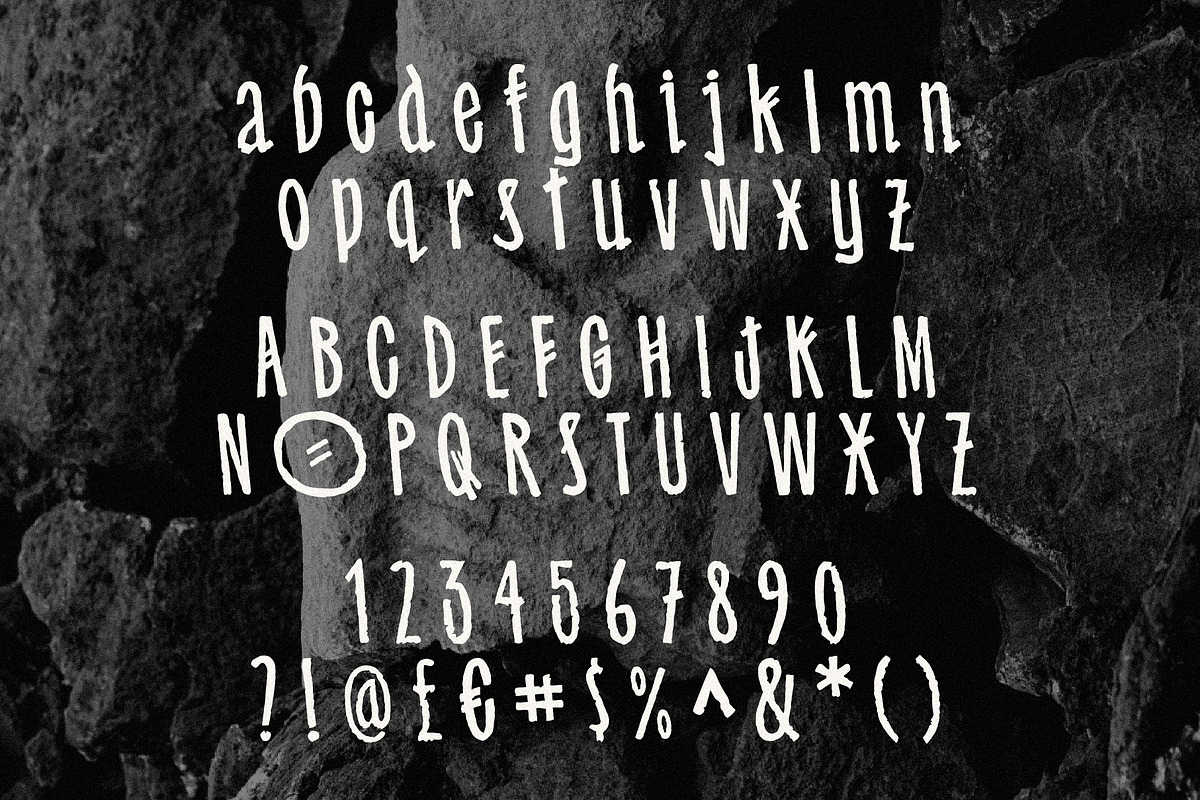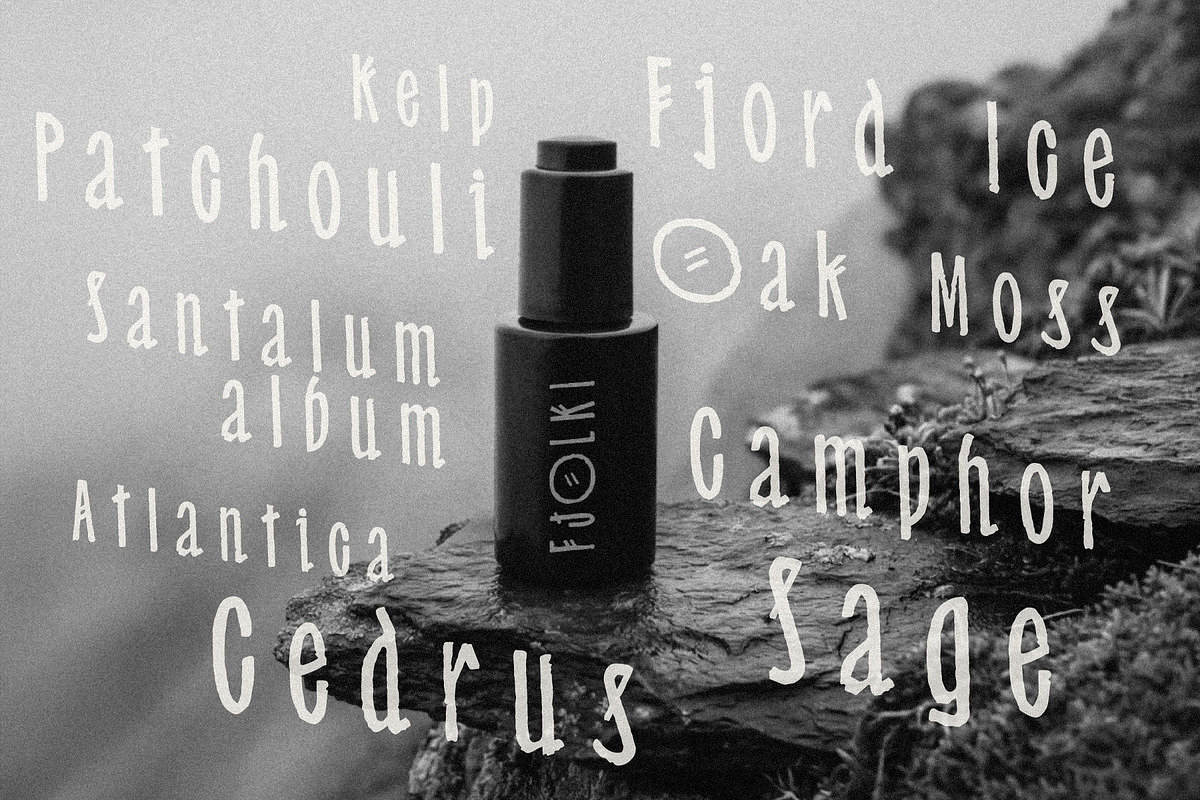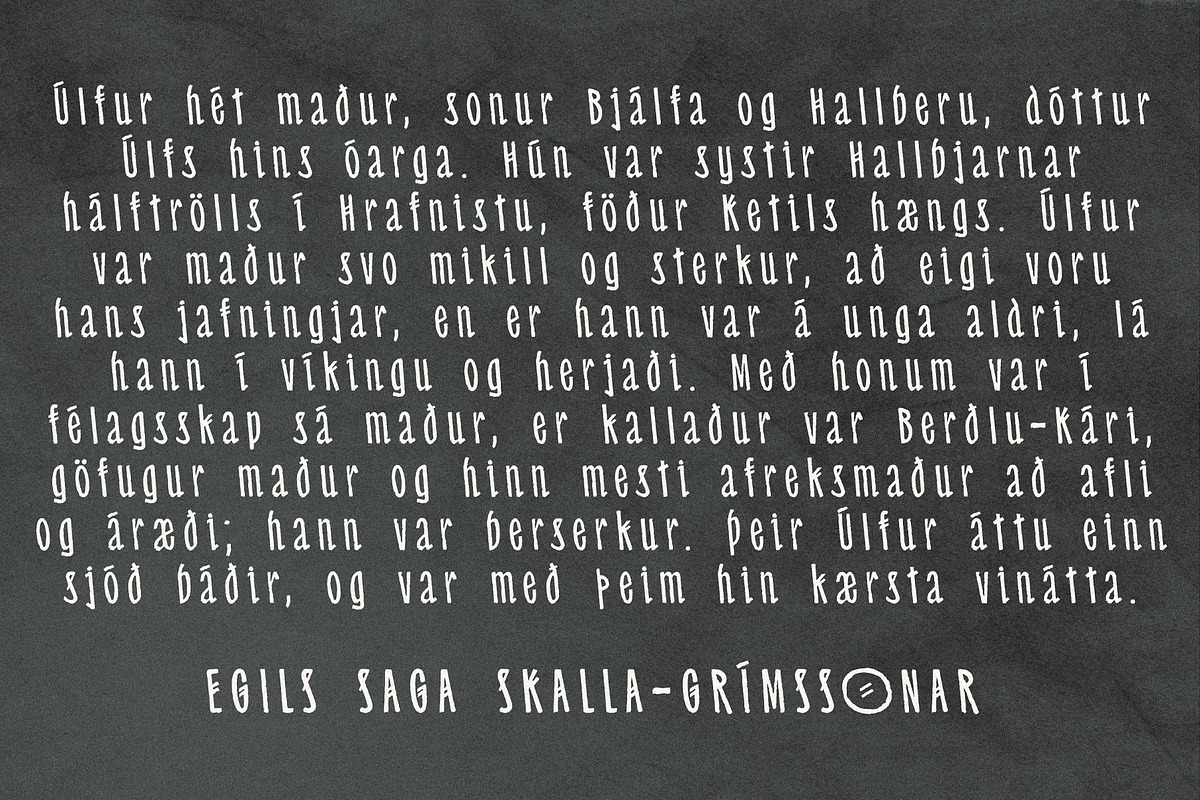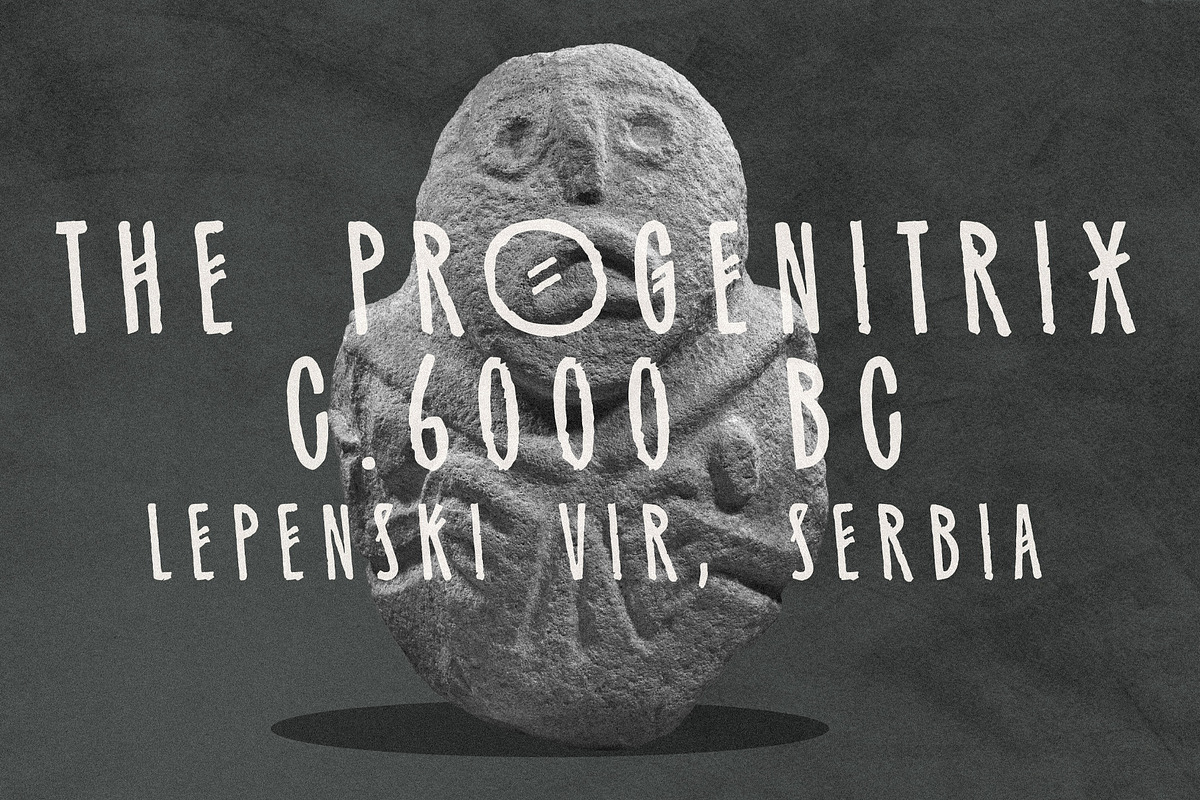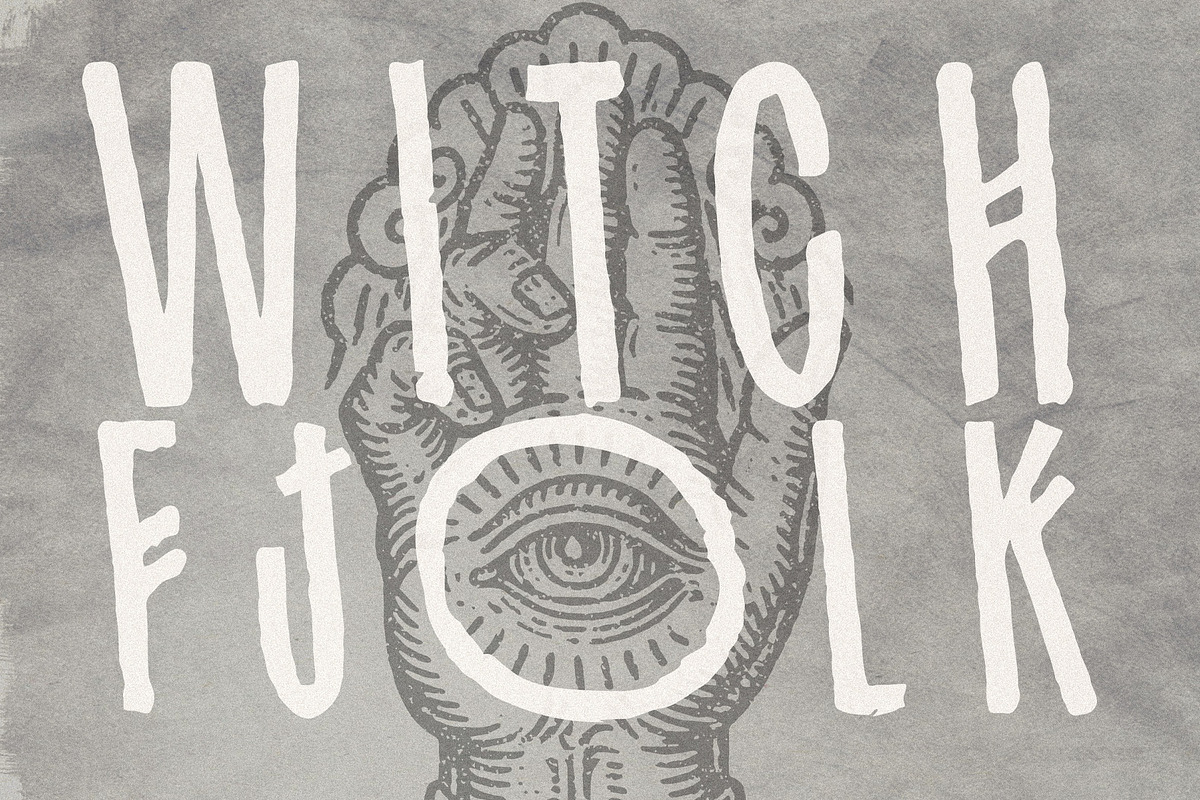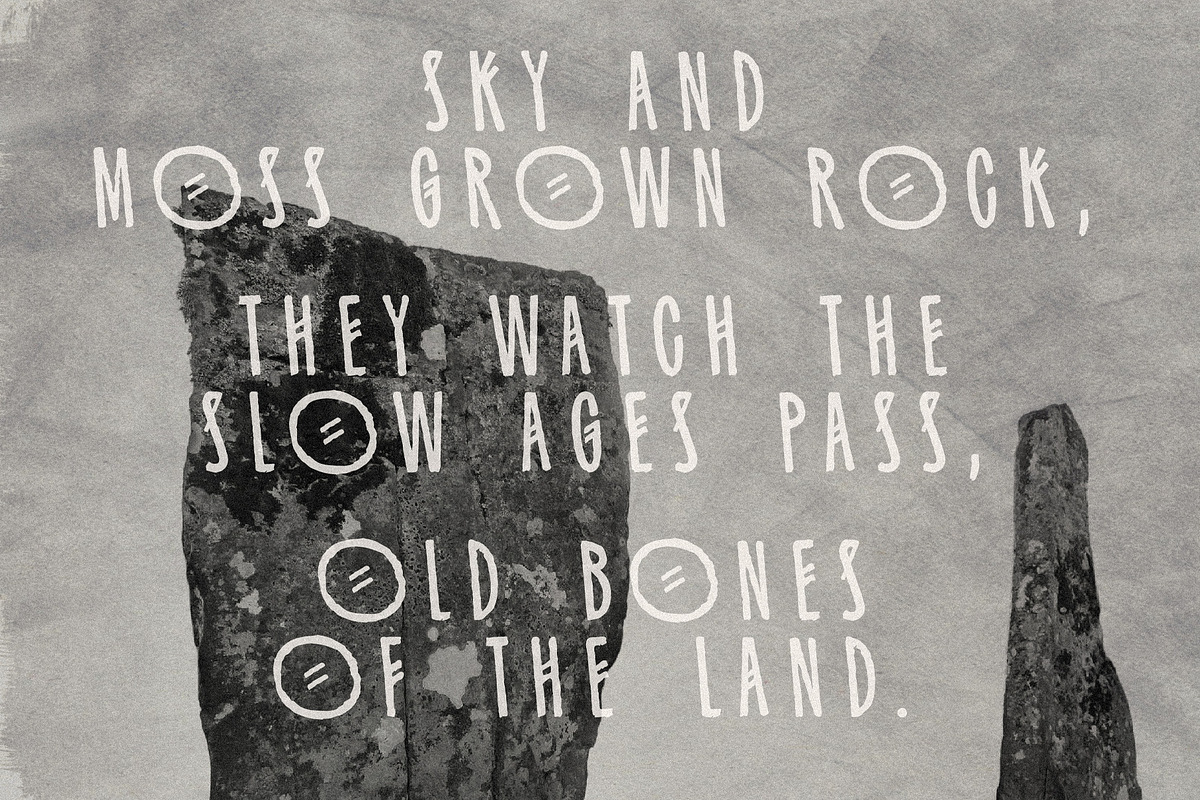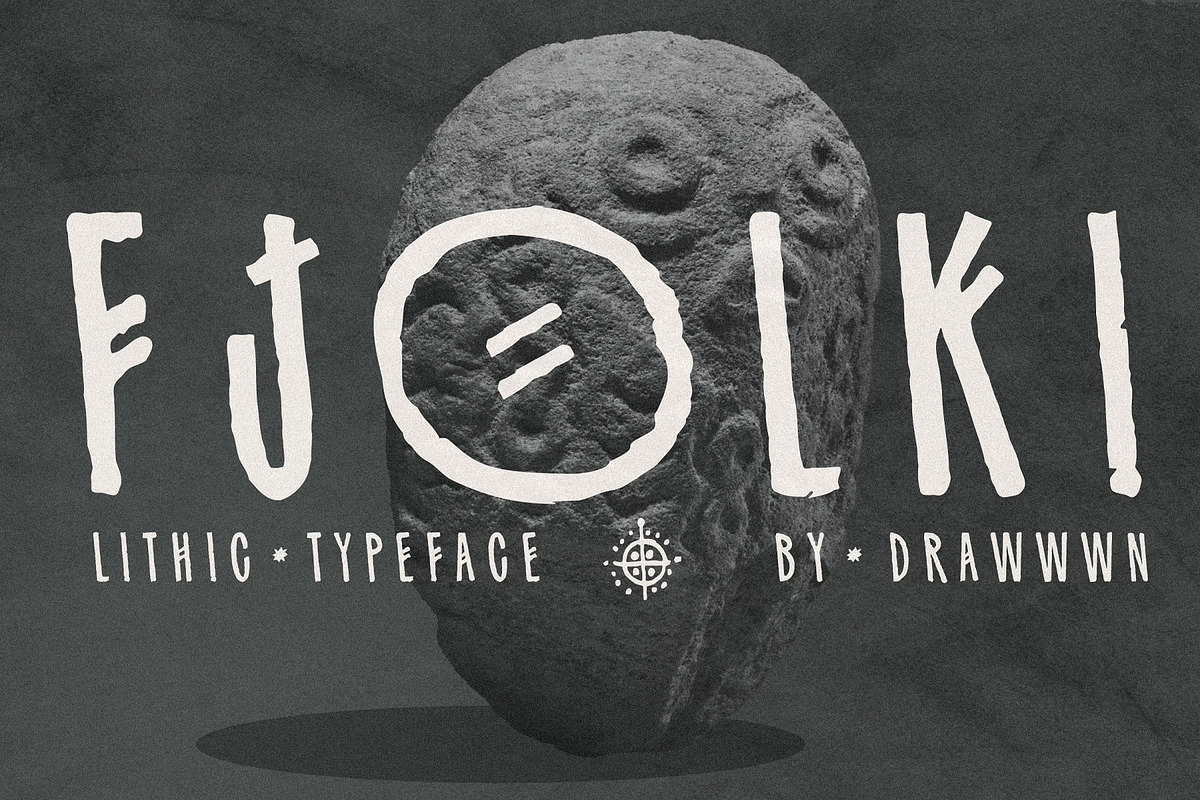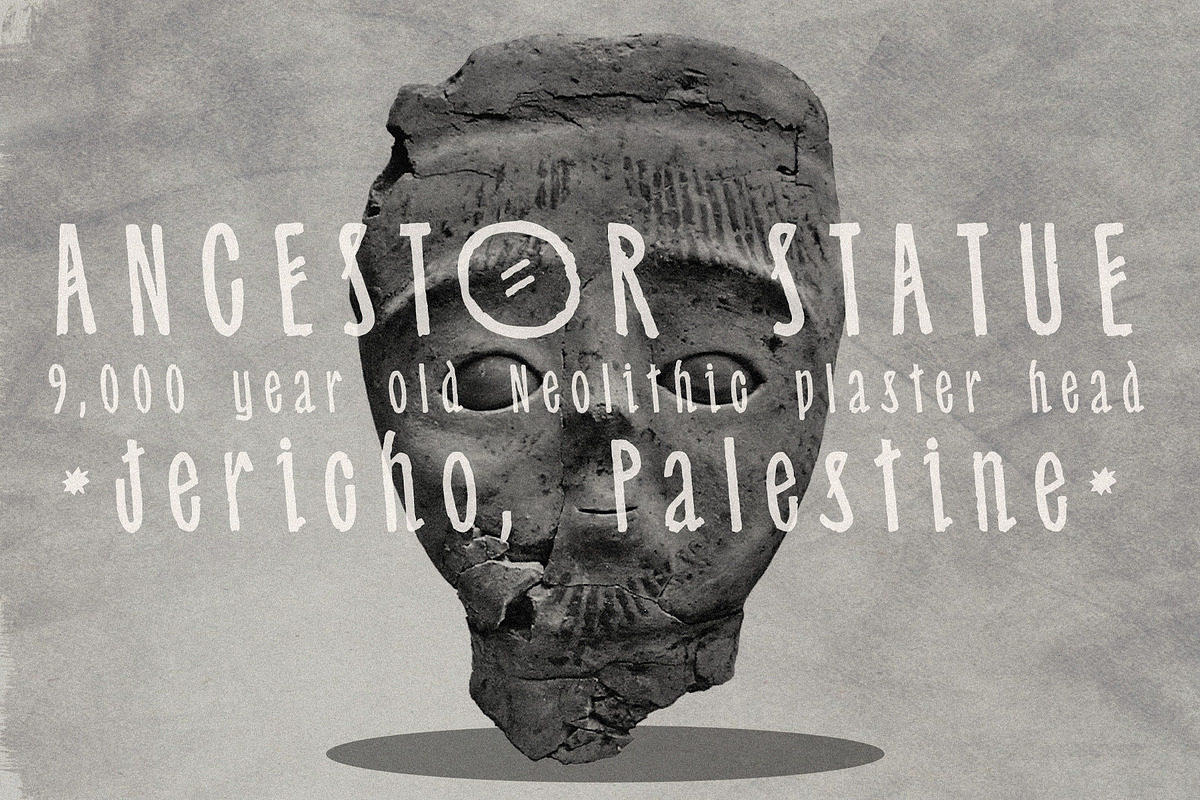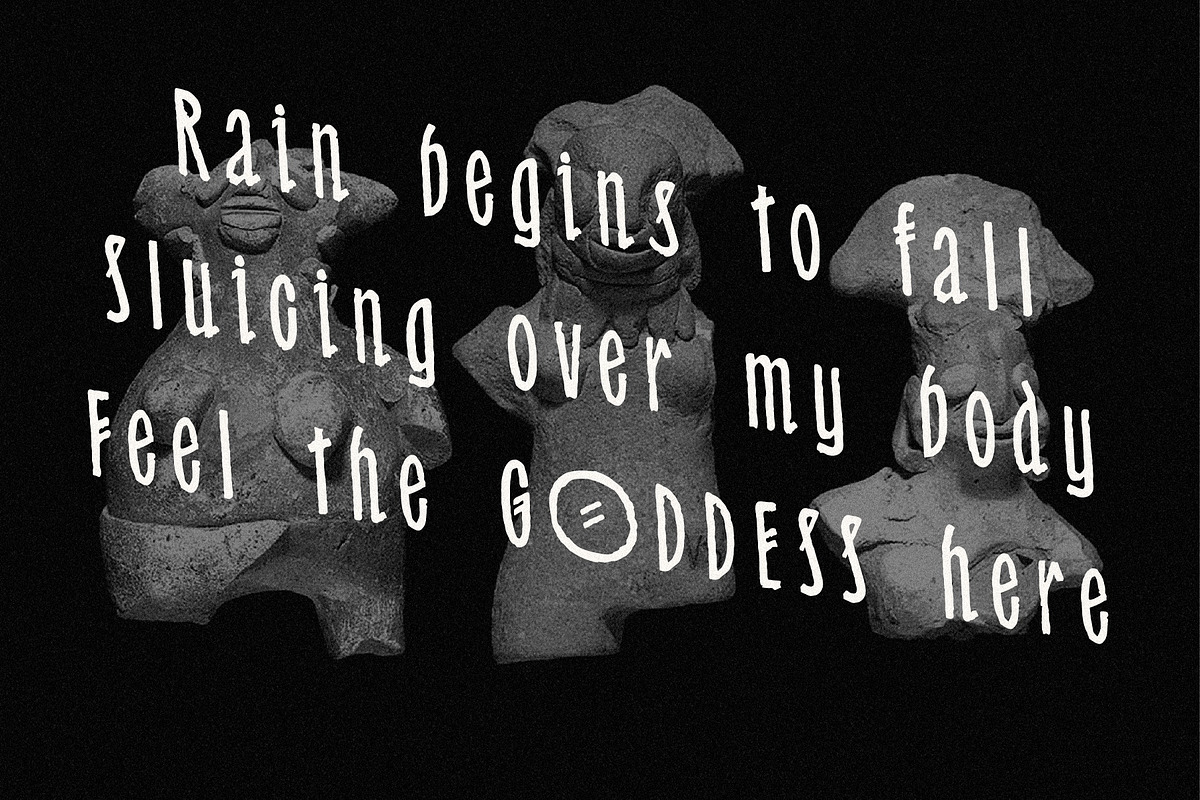
Fjolki | Lithic Typeface
Fjolki is a myth-forged typeface, shaped by Nordic legend and carved in runic forms. Rooted in folklore, standing stones and Neolithic ritual, its letters feel unearthed, a whisper from a forgotten past.
Weathered like the stones of Callanish yet refined for today, Fjolki balances ancient texture with modern precision. It doesn’t just speak, it conjures, carrying a quiet, elemental magic.
Perfect for bold fashion editorials or earthy, ritual-inspired brands, Fjolki calls you to something deeper.
Return to your roots with Fjolki.